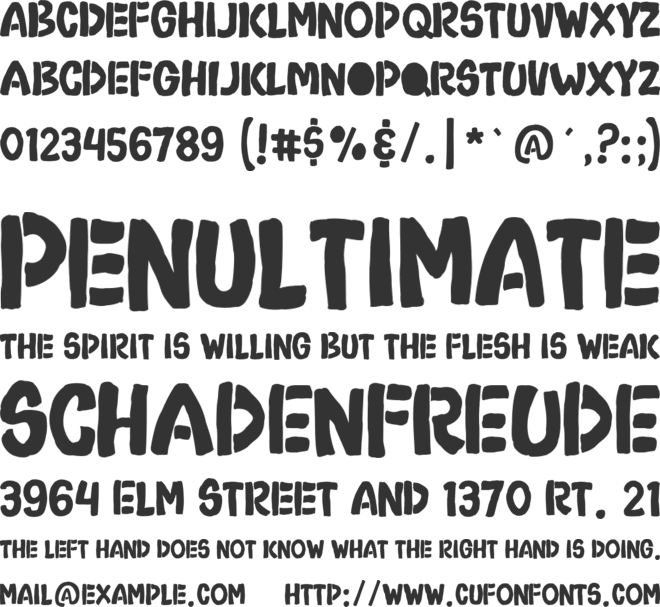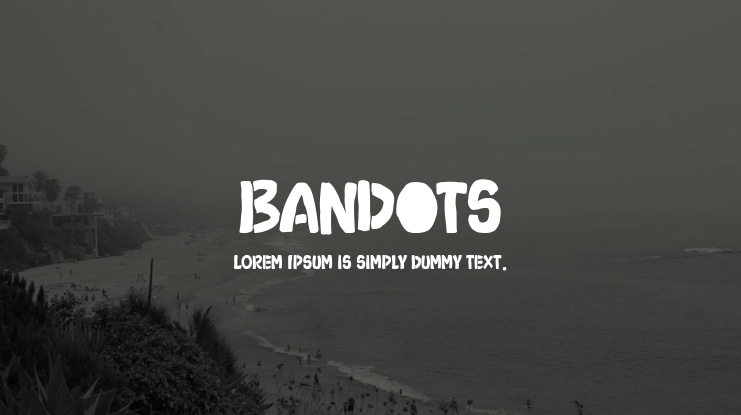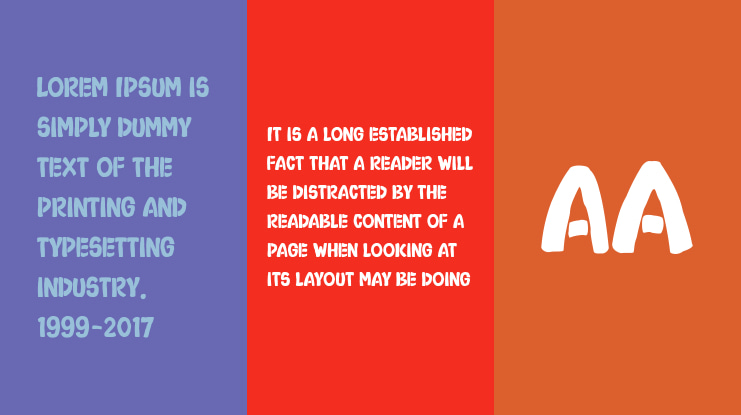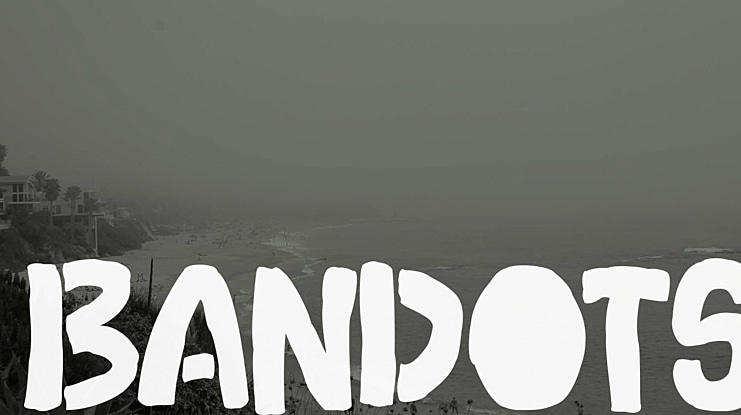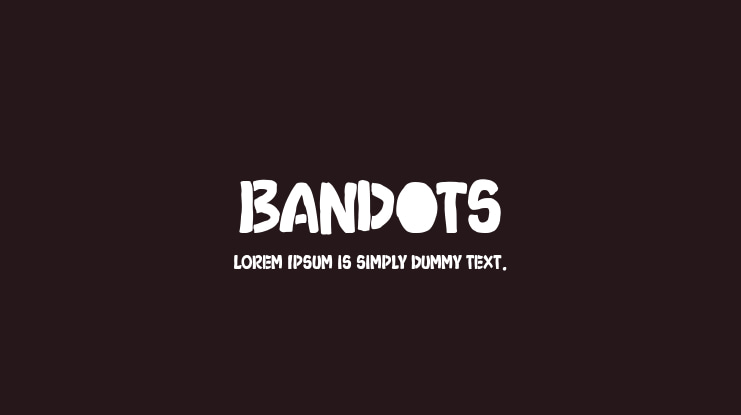
BandOts Font
Bandots is an impressive display font that combines a touch of ruggedness with a stencil-like aesthetic. Whether you're utilizing it for artistic projects, digital design work, professional presentations, or even crafting personalized greeting cards, this font possesses the versatility and charm to quickly become your preferred choice for any occasion.